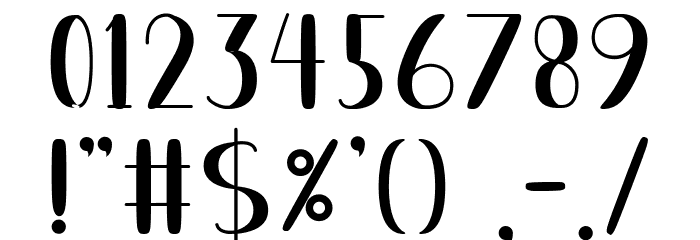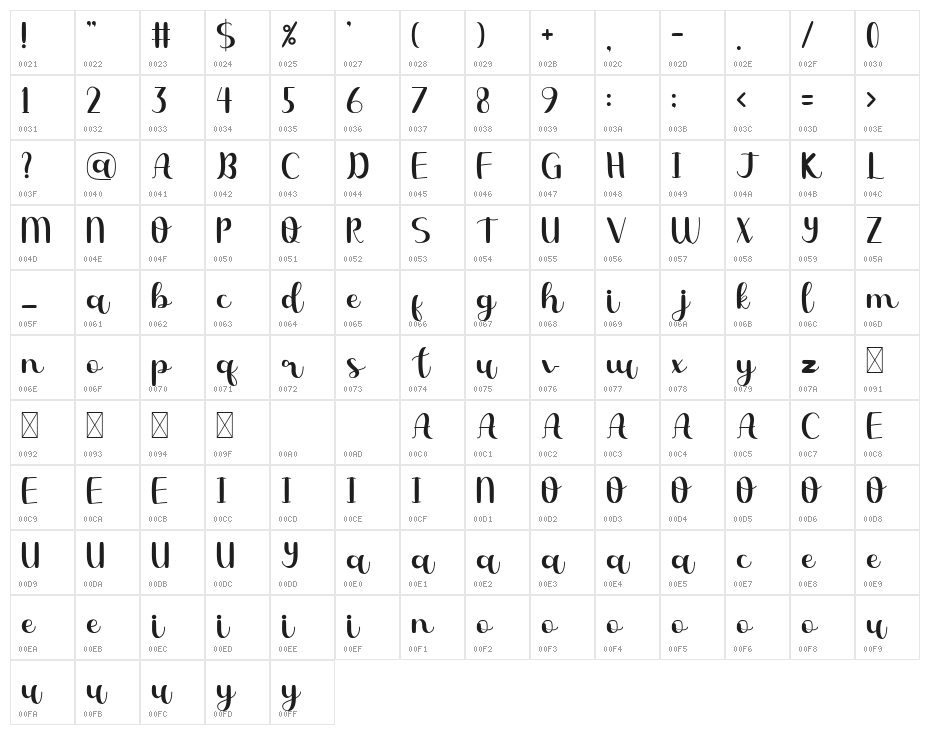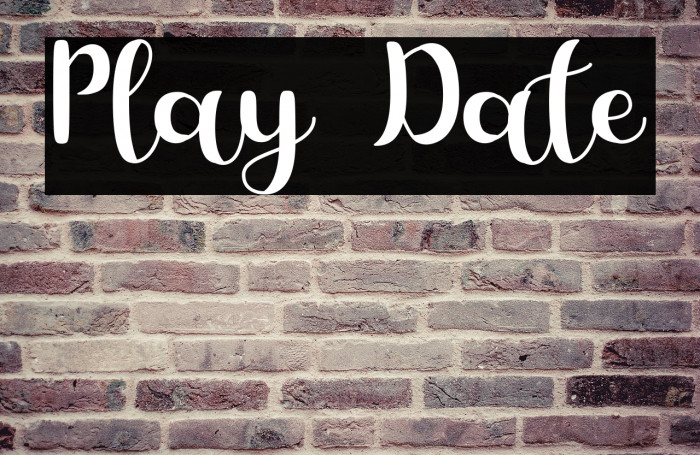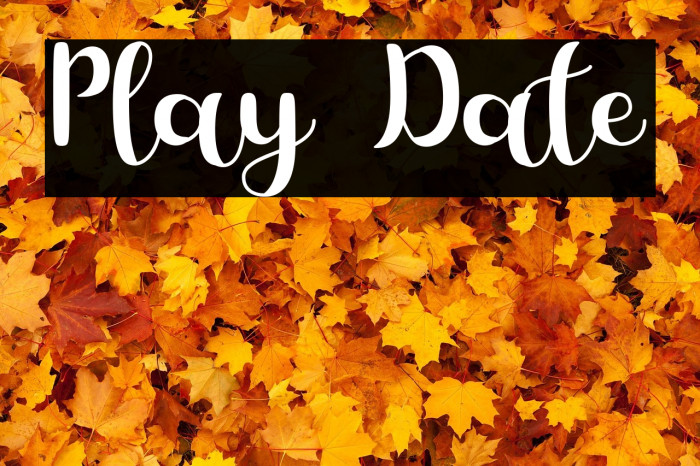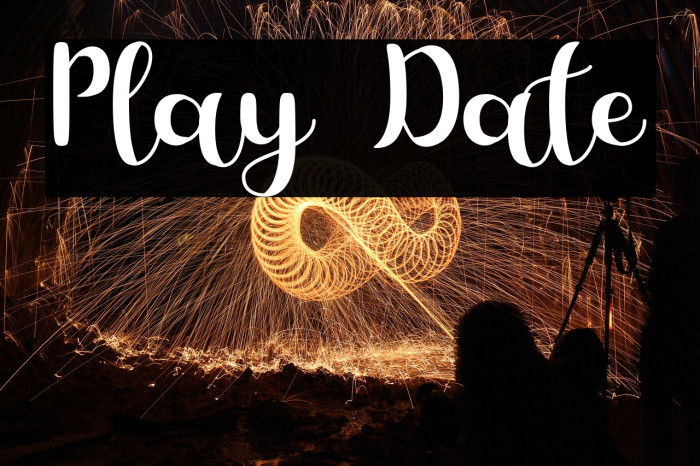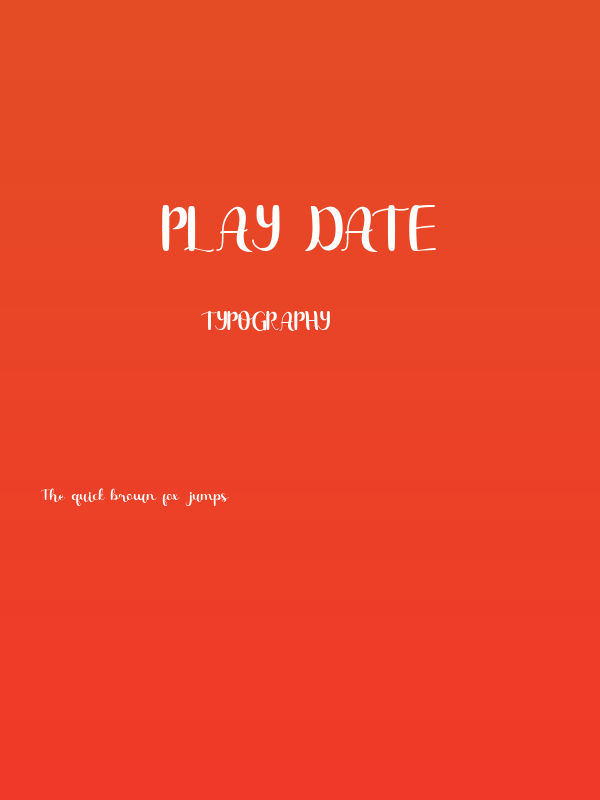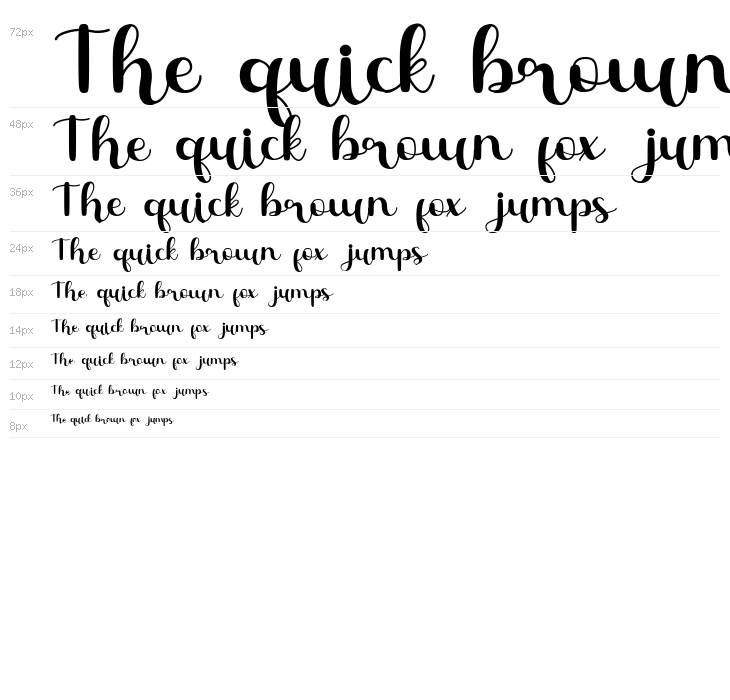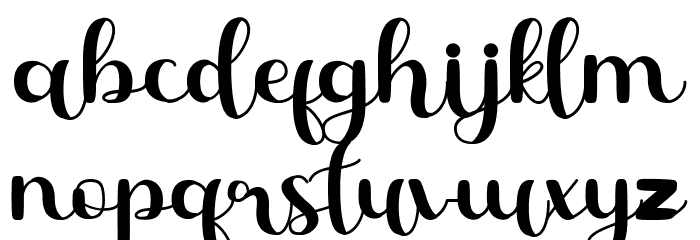
Play Date Font
Play Date Description
This font exhibits a playful and whimsical script style, characterized by its flowing, cursive letterforms. The uppercase letters are bold and dynamic, with a slight slant that adds to the energetic feel. The lowercase letters maintain a consistent style, with loops and curves that enhance the font's lively appearance. Numbers are designed with a similar flair, ensuring cohesion across all characters. The special characters are crafted to match the overall aesthetic, making this font suitable for creative and informal designs.